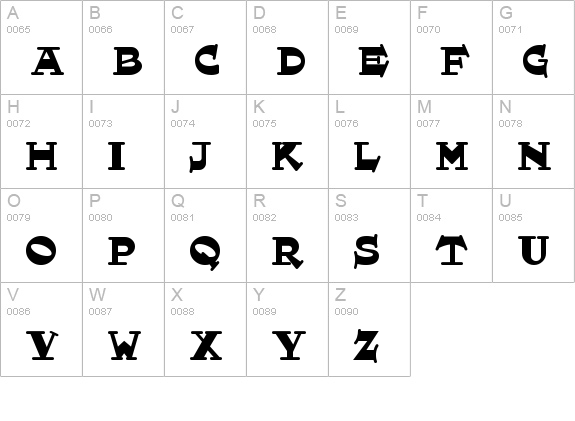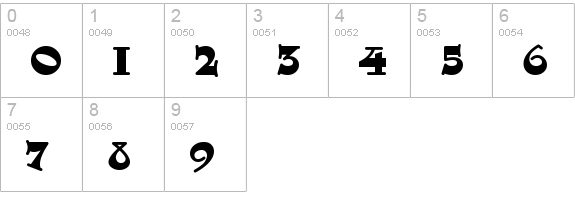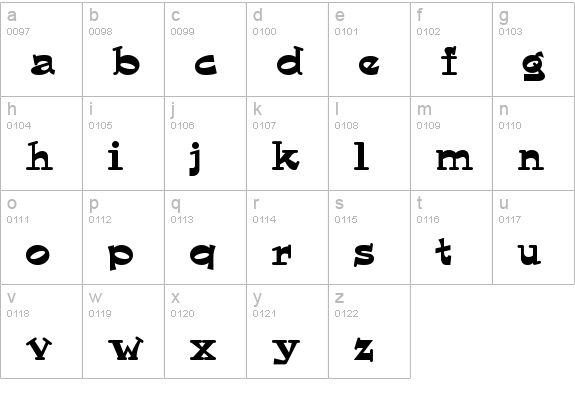
Hornswoggled Font Details
The Hornswoggled font is a whimsical and playful typeface that is sure to add a touch of charm to any design project. With its unique combination of bold curves and elegant serifs, this font is perfect for creating eye-catching headlines, invitations, and more. The Hornswoggled font is freely available to download at FontsMarket.com, making it easy for designers to access and use in their creative endeavors. Whether you're working on a branding project, a poster design, or any other creative endeavor, the Hornswoggled font is sure to make a lasting impression. Add a touch of fun and flair to your designs with this delightful typeface today!